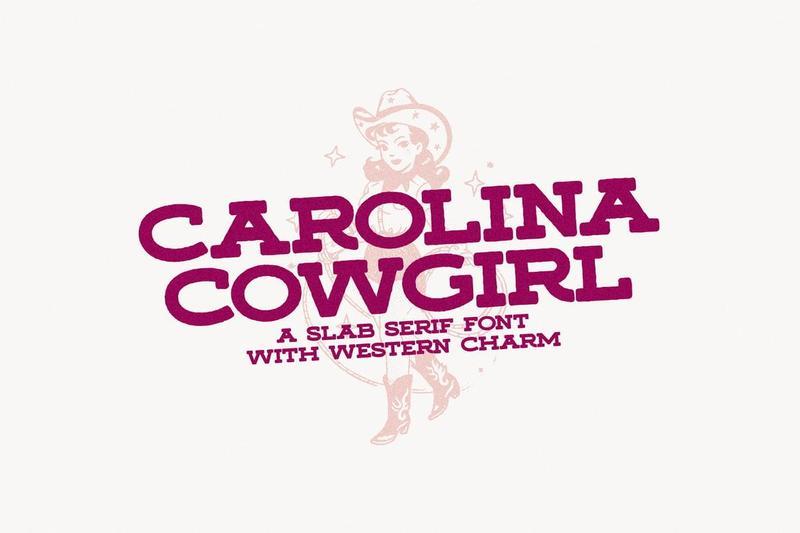
Carolina Cowgirl KUEKSNF
Introducing Carolina Cowgirl Slab Serif. This bold, chunky font (in two versions) is loaded with old western charm with a splash of editorial aesthetic. Use on Headlines, logos, books, signage, products, quotes and more!